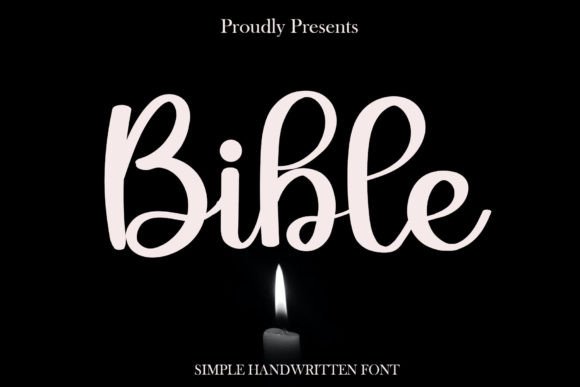
Bible Font: A Delicate, Elegant, and Flowing Handwritten Font
The Bible font is a beautiful, delicate, elegant, and flowing handwritten font that has gained popularity among designers and typography enthusiasts. Its unique characteristics make it an excellent choice for a wide range of design projects, from creative ideas to commercial applications. In this article, we will explore the features, benefits, and uses of the Bible font, and discuss why it has become a favorite among designers.
What is Bible Font?
Bible font is a type of handwritten font that is characterized by its delicate, elegant, and flowing strokes. It is a carefully crafted font that features beautiful and well-balanced characters, making it an excellent choice for designs that require a touch of sophistication and elegance. The font’s unique design makes it versatile and suitable for a wide range of applications, from digital designs to print materials.
Key Features of Bible Font
- Delicate and Elegant: The Bible font features delicate and elegant strokes that give it a unique and sophisticated look.
- Flowing Handwritten: The font has a flowing handwritten style that makes it perfect for designs that require a personal touch.
- Well-Balanced Characters: The font features well-balanced characters that make it easy to read and understand.
- Versatile: The Bible font is versatile and can be used for a wide range of design projects, from digital designs to print materials.
Benefits of Using Bible Font
The Bible font offers several benefits to designers and typography enthusiasts. Some of the benefits of using this font include:
Benefits of Bible Font
- Unique and Sophisticated Look: The Bible font gives designs a unique and sophisticated look that sets them apart from others.
- Elegant and Refined: The font’s elegant and refined strokes make it perfect for designs that require a touch of sophistication.
- Improved Readability: The font’s well-balanced characters make it easy to read and understand, improving the overall readability of designs.
- Versatility: The Bible font can be used for a wide range of design projects, making it a valuable addition to any designer’s font library.
Uses of Bible Font
The Bible font can be used for a wide range of design projects, including:
Design Projects that Use Bible Font
- Digital Designs: The Bible font can be used for digital designs, such as website headers, social media graphics, and email marketing campaigns.
- Print Materials: The font can be used for print materials, such as brochures, flyers, and business cards.
- Branding and Identity: The Bible font can be used for branding and identity projects, such as logos and letterheads.
- Creative Projects: The font can be used for creative projects, such as handmade cards, invitations, and art projects.
Tips for Using Bible Font
Here are some tips for using the Bible font effectively:
Tips for Using Bible Font
- Use it Sparingly: Use the Bible font sparingly to avoid overwhelming the design.
- Pair it with Other Fonts: Pair the Bible font with other fonts to create a unique and interesting design.
- Adjust the Size and Color: Adjust the size and color of the font to suit the design and improve readability.
- Experiment with Different Styles: Experiment with different styles, such as italic and bold, to add variety to the design.
In conclusion, the Bible font is a beautiful, delicate, elegant, and flowing handwritten font that is perfect for designs that require a touch of sophistication and elegance. Its unique characteristics make it an excellent choice for a wide range of design projects, from digital designs to print materials. With its versatility, readability, and aesthetic appeal, the Bible font is a valuable addition to any designer’s font library.
Get Creative with Bible Font
Add the Bible font to your most creative ideas and notice how it makes them come alive! With its delicate and elegant strokes, well-balanced characters, and versatility, this font is sure to take your designs to the next level.